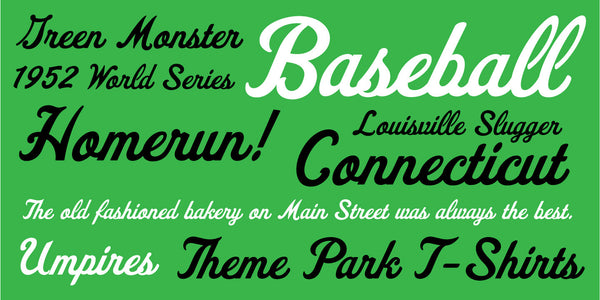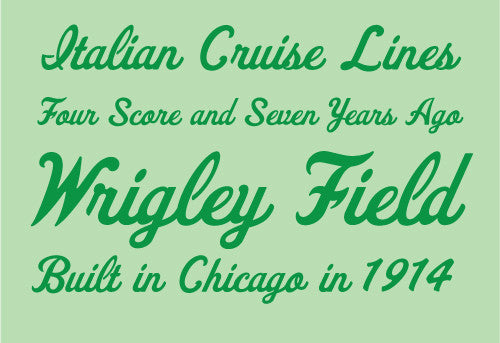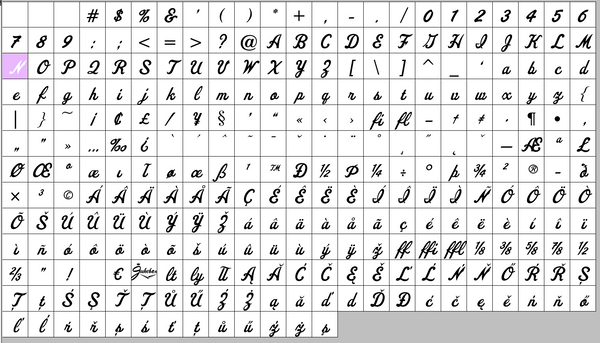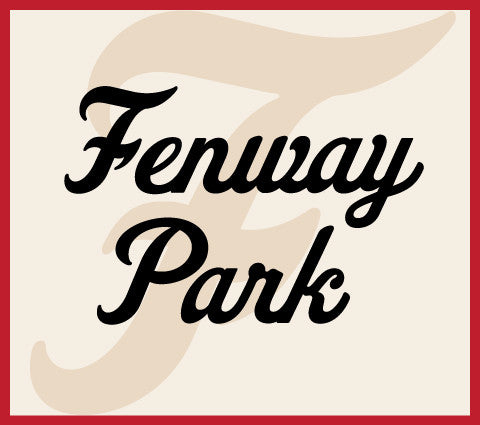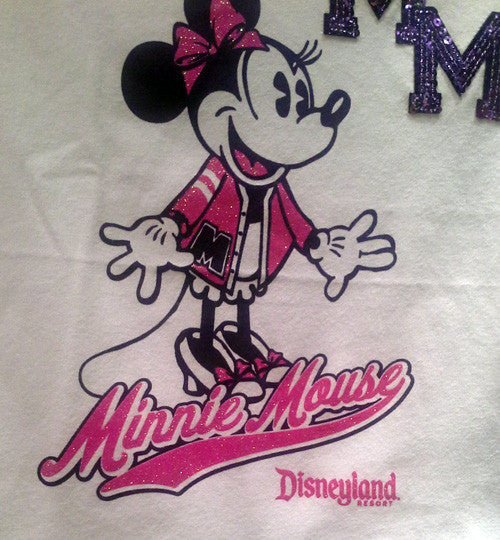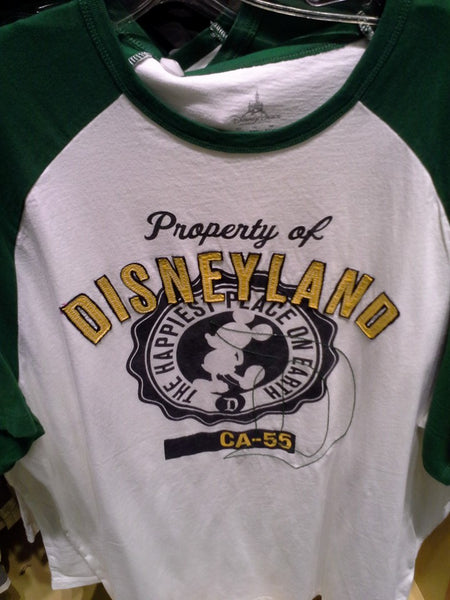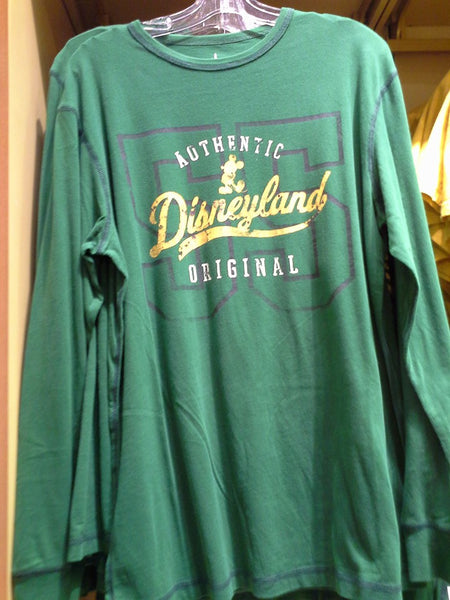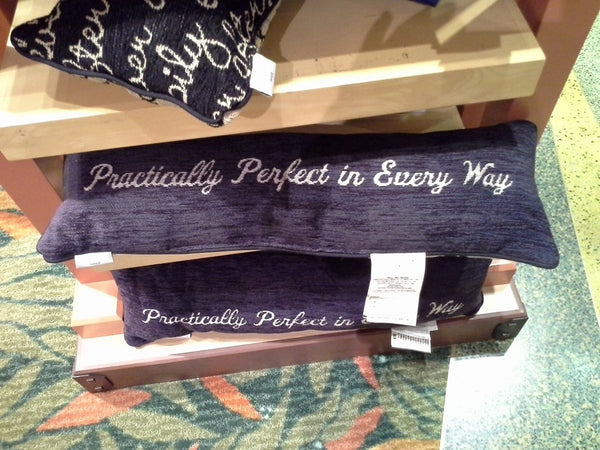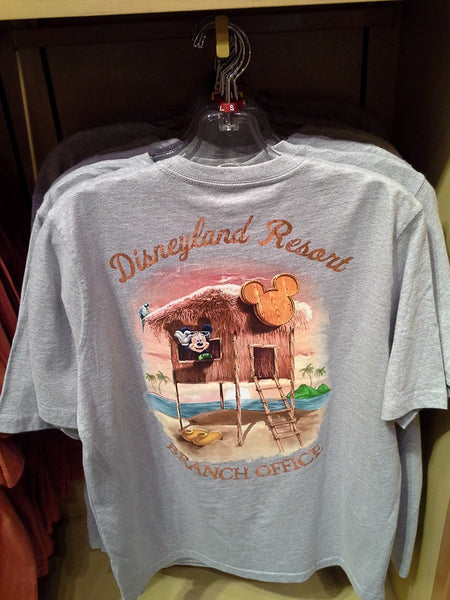
Fenway Park
Fenway Park has been one of the most consistently popular fonts from Jukebox ever since its debut and has now become something of staple among type collections. Based on the lettering styles of athletic and sport team logos (especially baseball), this font captures all the nostalgia and old fashioned American charm of its name sake in Boston. When using Fenway Park you can almost hear the crack of the bat and taste the chewing gum.